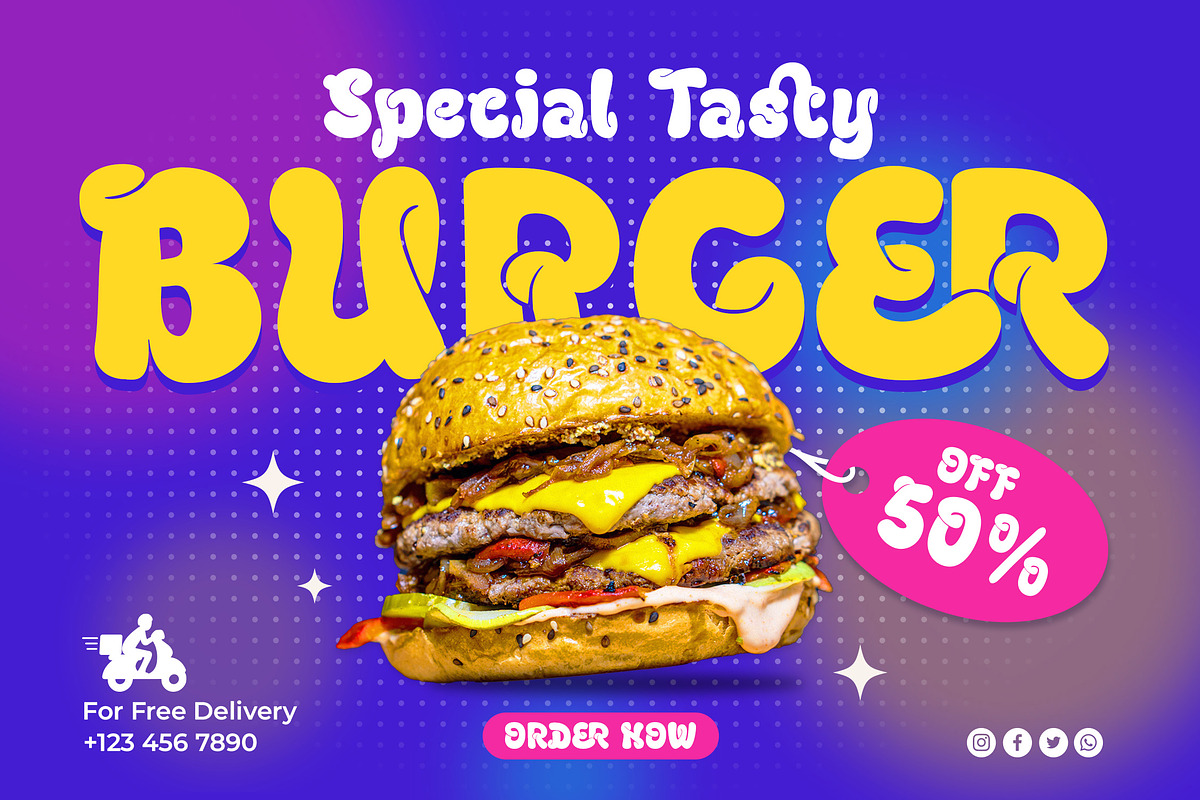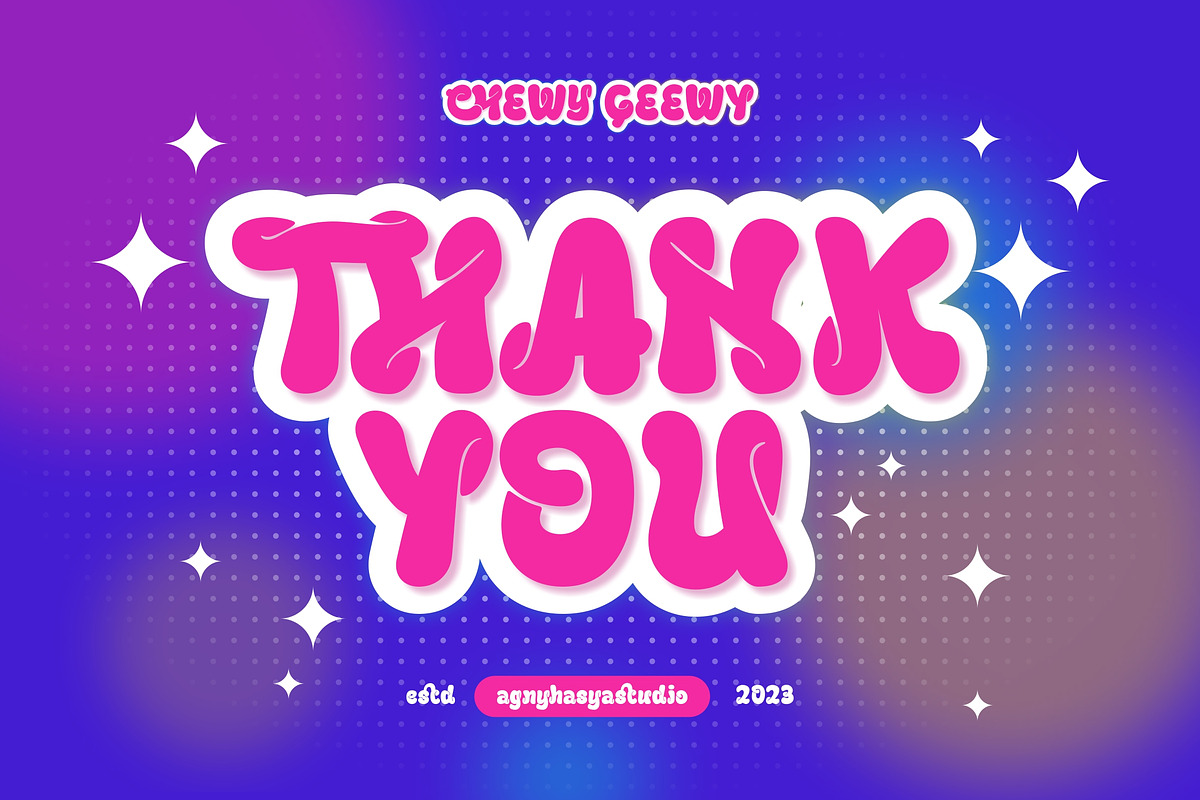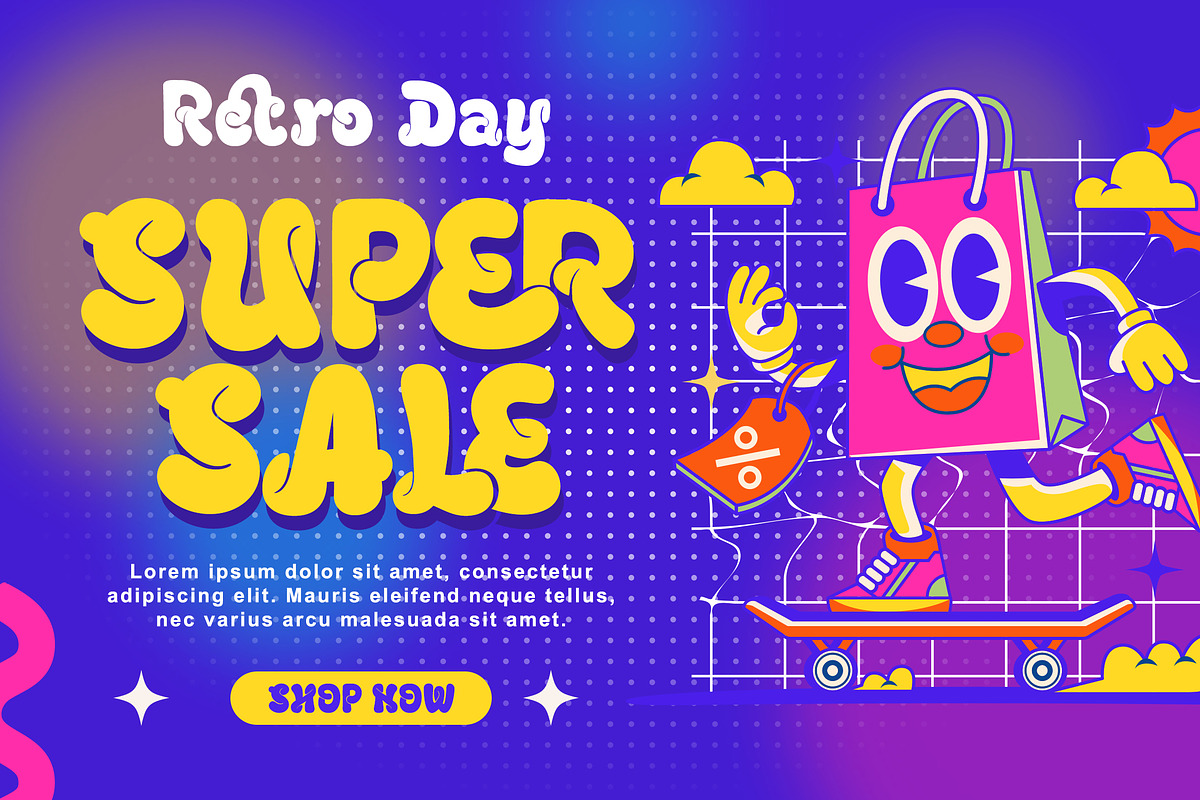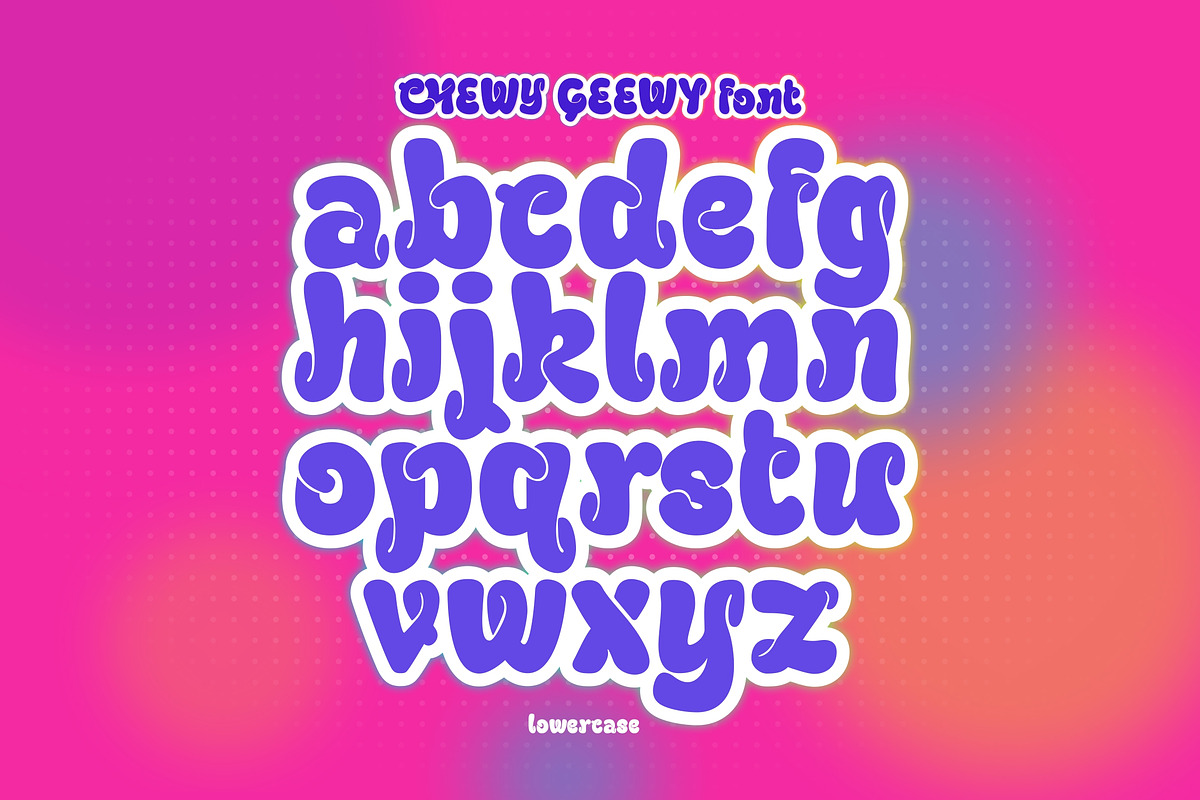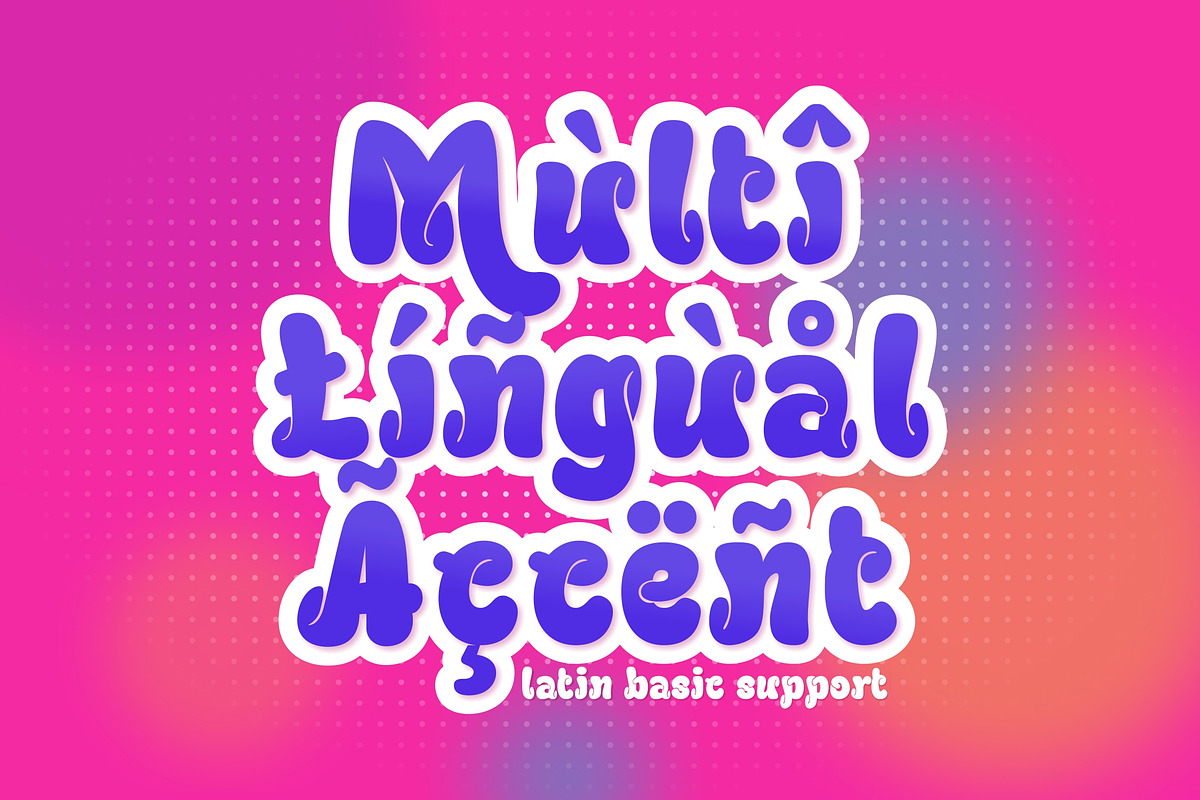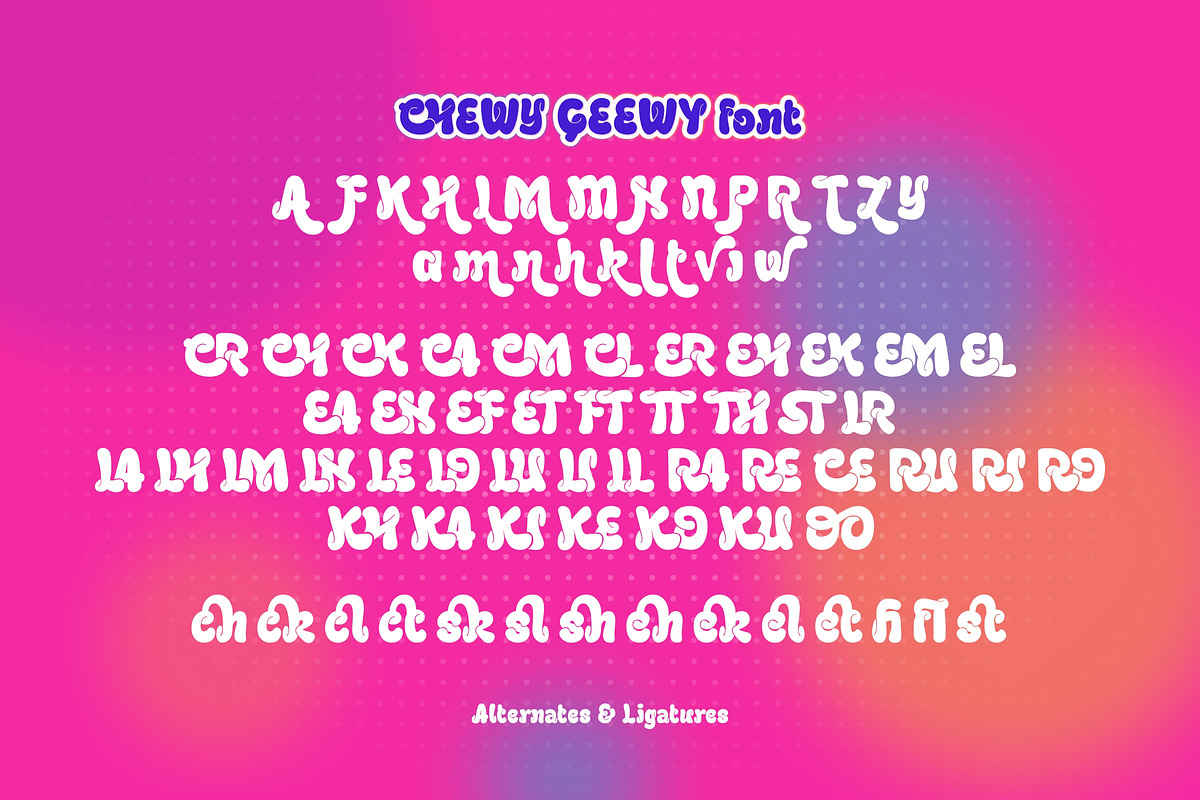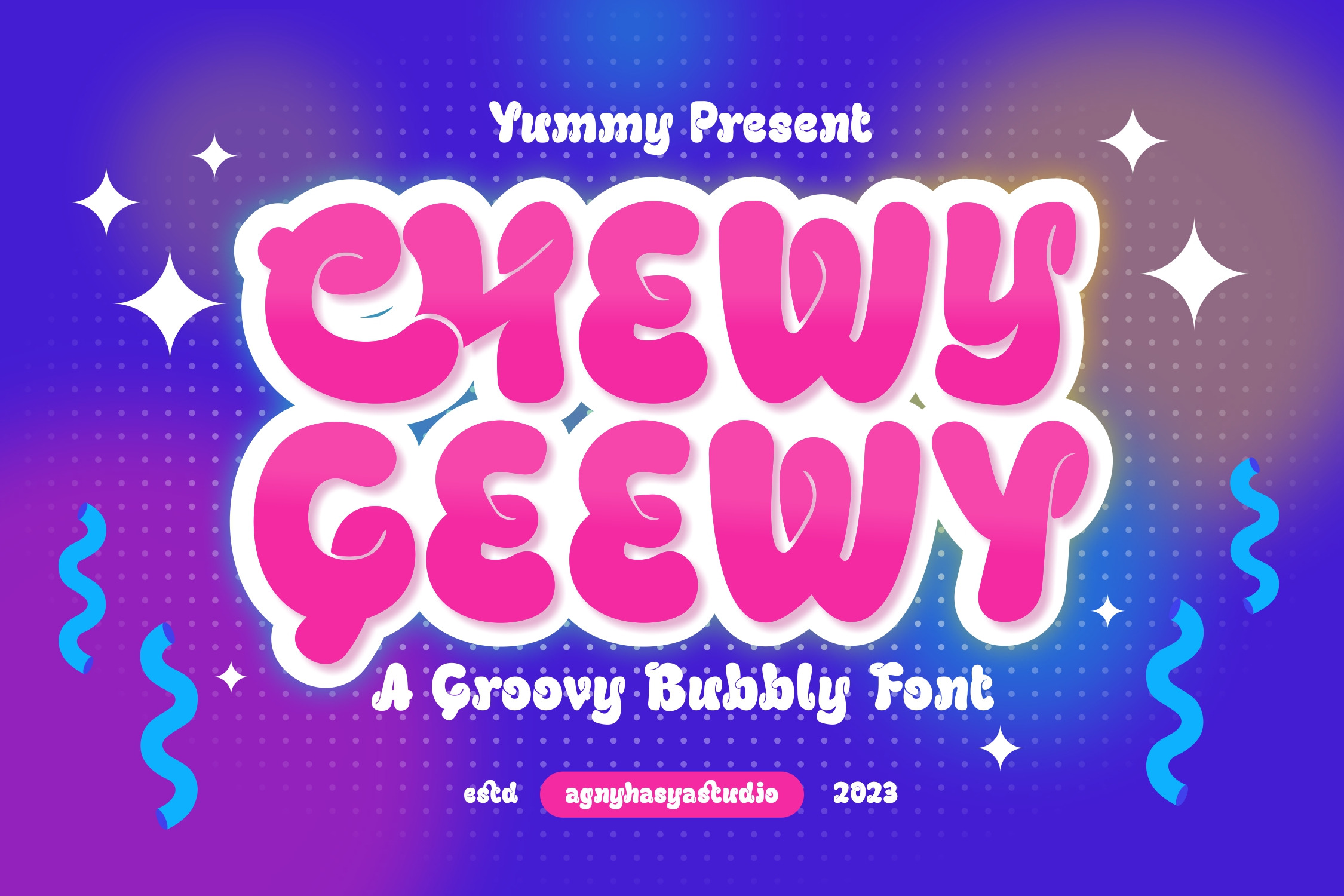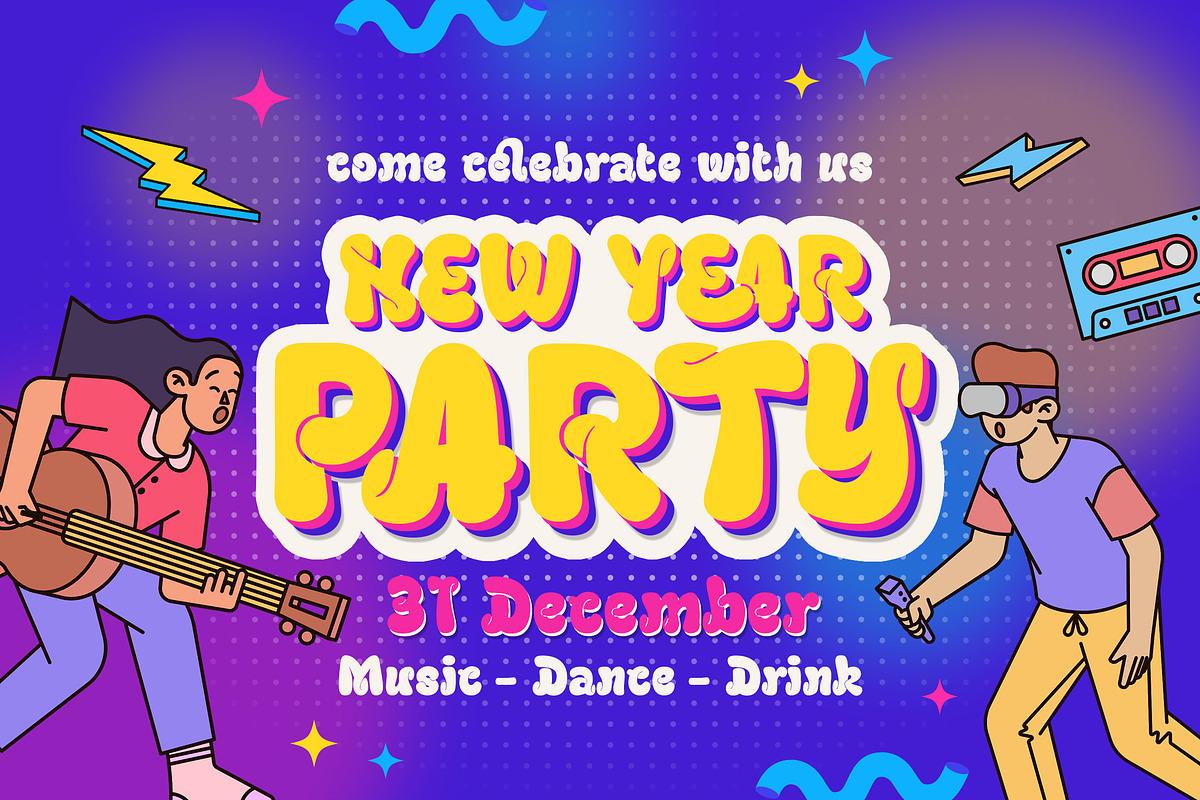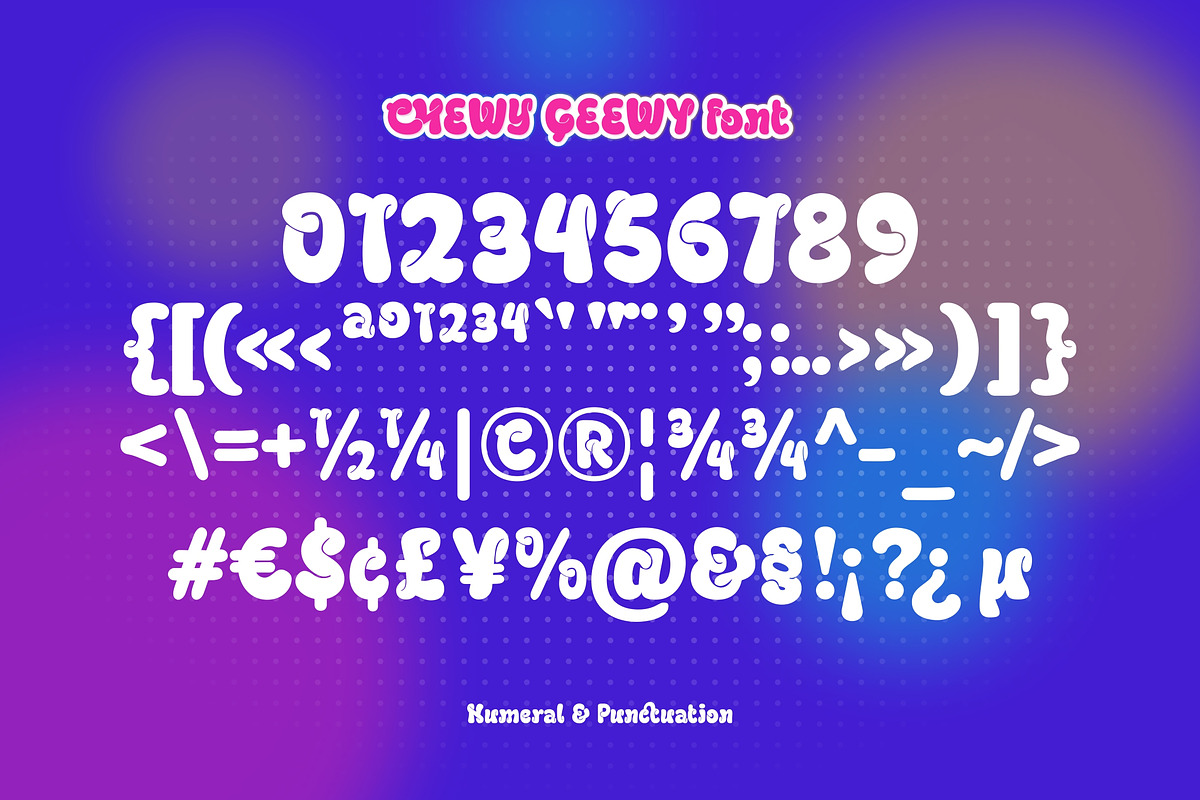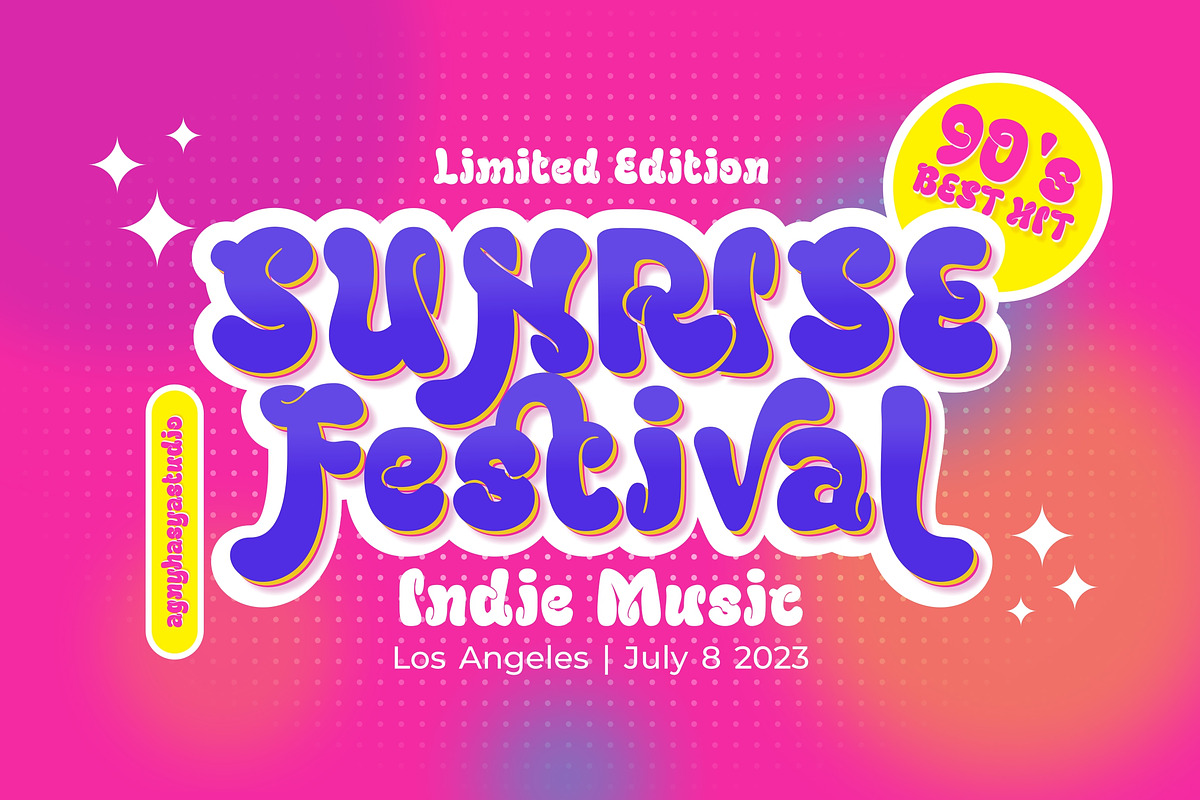
Chewy Geewy - A Groovy Bubbly Font
Proudly Present Chewy Geewy - A Groovy Bubbly Typeface
Chewy Geewy is a Playful, Groovy Bubbly, and Fun typeface. Come in 2 (two) styles (regular & slant) and is created with some alternate and ligature. Perfect for your design projects like logos, branding, advertising, product designs, magazine designs, book/cover title designs, art quotes, special events, labels, product packaging, and more.